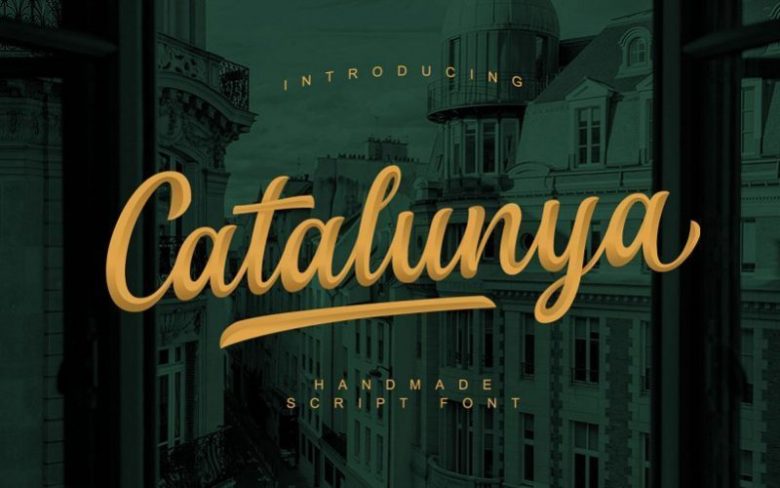
Catalunya Script Font
Here is my new font product, Catalunya.
Catalunya font has smooth curve, so would be perfect for all types of printing techniques.
This font is suitable for any purpose project, such as Quotes, bussines card, Initial, etc.